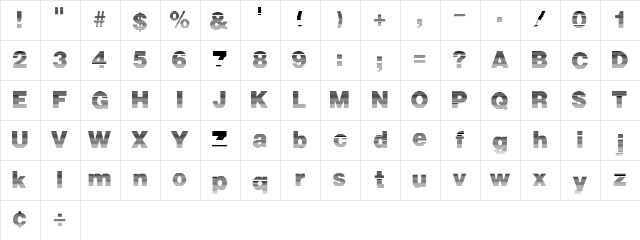
StripedSansBlack Regular
Design Context for StripedSansBlack Typeface
StripedSansBlack takes a measured approach to typography — its balanced proportions and neutral character make it a reliable workhorse for both digital and print work.